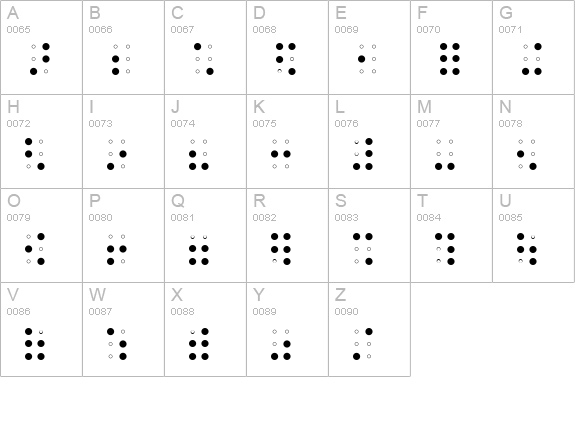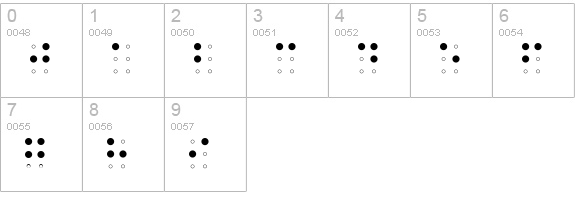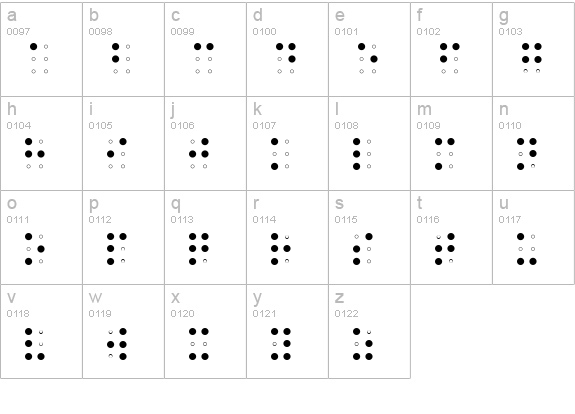
Braille AOE font is a unique and innovative typeface designed to replicate the tactile feel of Braille characters. With its raised dots and sleek design, this font brings a sense of accessibility and inclusivity to your projects. Whether you're creating materials for the visually impaired or simply looking to add a touch of creativity to your designs, Braille AOE font offers a fresh and modern approach to typography. Best of all, Braille AOE font is available for free download at FontsMarket.com. This means you can easily access this versatile and eye-catching font to enhance your projects without any cost. Don't miss out on the opportunity to incorporate Braille AOE font into your designs and make a meaningful impact. Download it today and start creating visually stunning and engaging content.